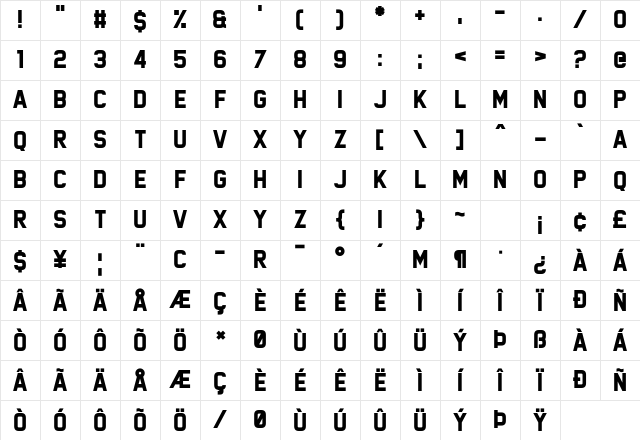
Nemesis Grant Regular
Designer: Allison James
Design Context for Nemesis Grant
Nemesis Grant is a composed and adaptable typeface that performs quietly and consistently across a wide range of design contexts.
Pro Tip: Use Nemesis Grant in both headline and body roles to test its range before committing to a single application.